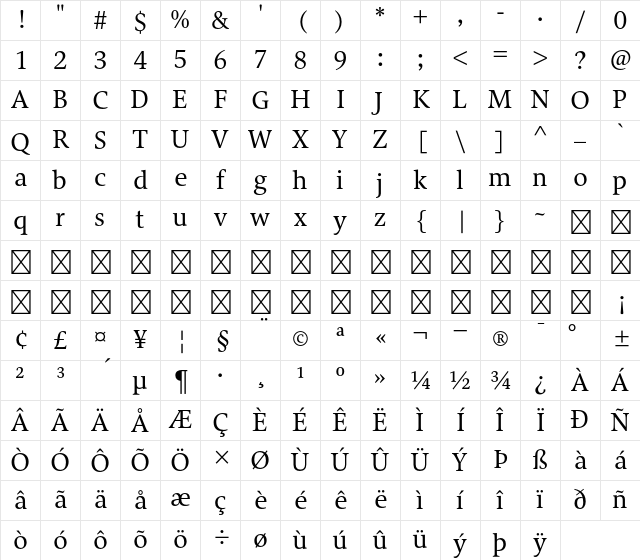
Complete Hiragino UD Serif StdN W4 glyph index. Displaying only characters natively supported by Hiragino UD Serif StdN W4 font.
Hiragino UD Serif StdN carries the refined structure of traditional serif typography, with bracketed terminals and considered proportions that communicate credibility and craft.
Who designed the Hiragino UD Serif StdN W4 font?
This font was published by Dainippon Screen Mfg. Co., Ltd.. Check the technical specs section for copyright and designer details.